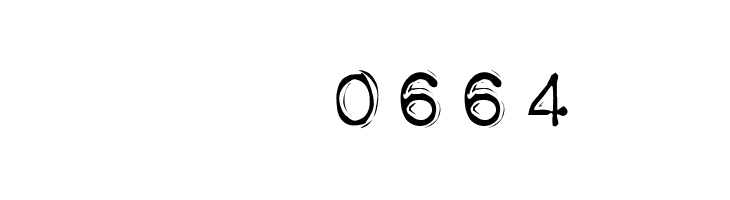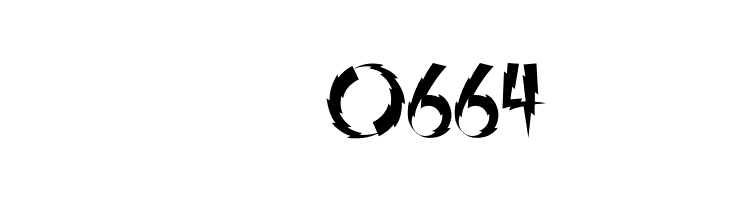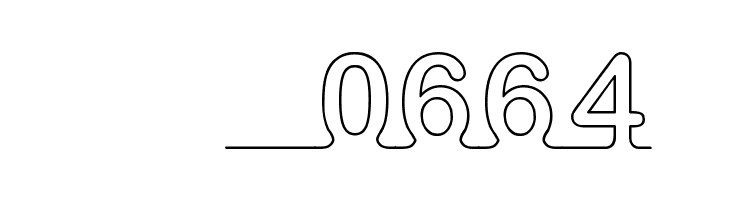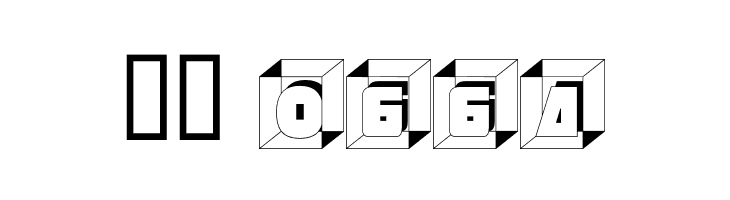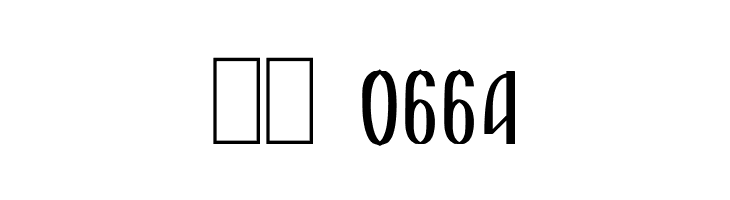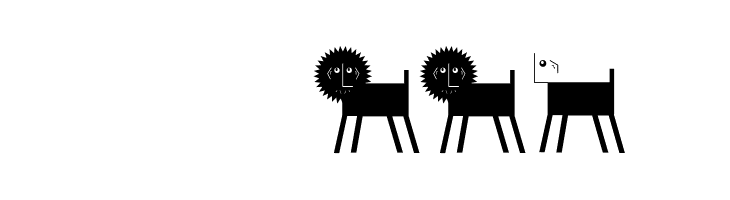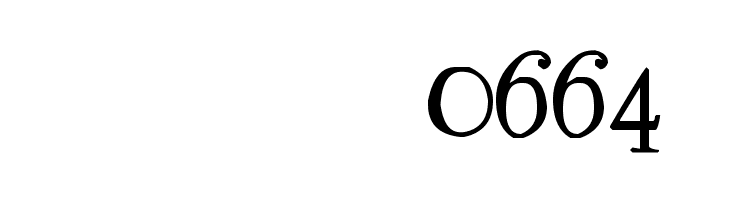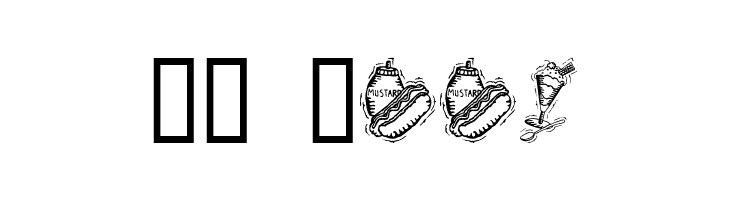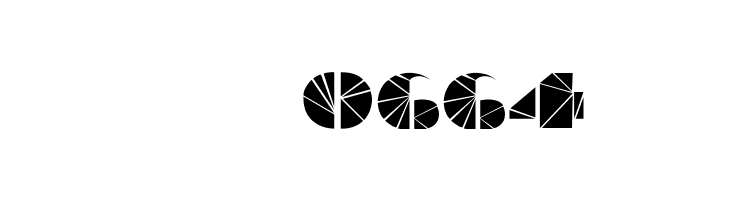
A whimsical, hand-drawn font with playful, irregular strokes.
A bold, geometric font with angular lines and a futuristic style.
A bold, distressed font with a rugged, weathered appearance.
A bold, shattered glass effect font with a modern and decorative style.
A playful, ice cream-themed decorative font with bold, rounded characters.
Hand-drawn icon font with playful, detailed illustrations.
A bold, fingerprint-patterned font with a modern and artistic style.
A playful, hand-drawn font with a whimsical and informal style.
A playful, illustrative display font with dog-bodied characters and varied heads.
OFF SITE )A bold, Gothic-inspired font with sharp angles and decorative serifs.
A bold, 3D block-style font with geometric and angular design.
A jagged, edgy font with a hand-drawn appearance and sharp, angular lines.
Bold, decorative uppercase font with zigzag interior patterns.
A bold, decorative font with stars and stripes, ideal for standout designs.
A bold, distressed font with a grunge, decayed texture and sharp descenders.
A whimsical font blending serif and script styles with playful curves.